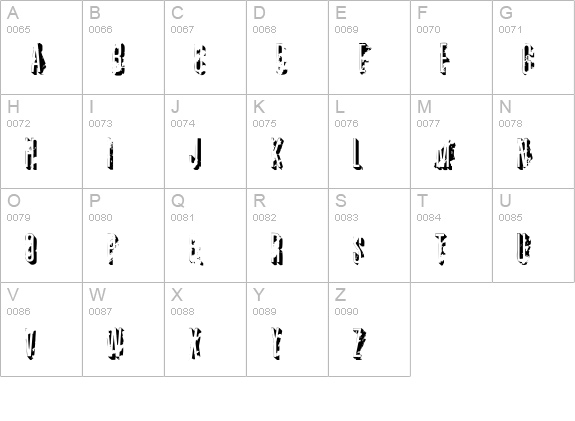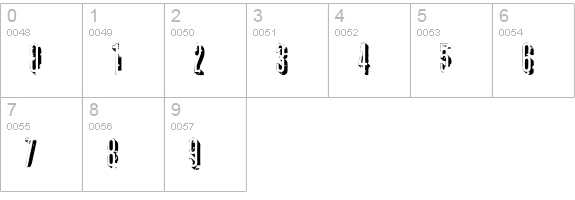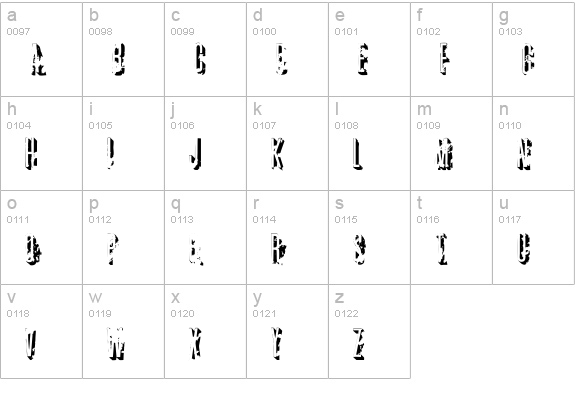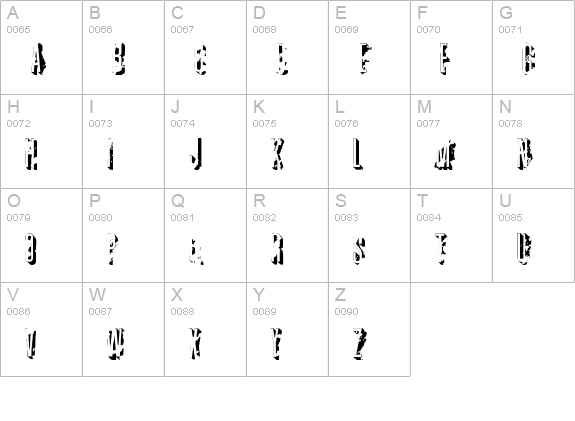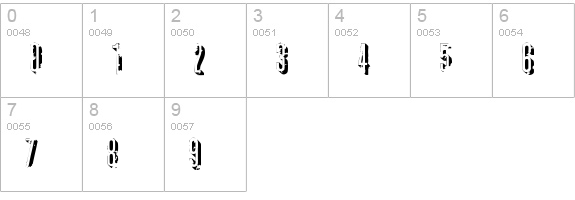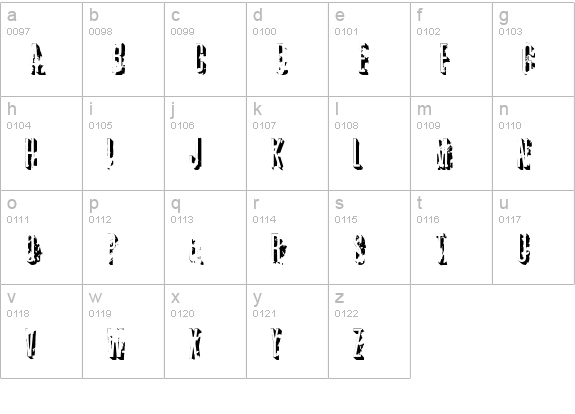
AZ crushed Font Details
The AZ Crushed font is a unique and eye-catching typeface that combines elements of modern design with a distressed, crushed texture. This font exudes a sense of edginess and creativity, making it perfect for projects that require a bold and impactful look. Its sharp edges and uneven lines give it a raw and rugged appearance, adding a touch of urban flair to any design. Best of all, the AZ Crushed font is available for free download at FontsMarket.com, making it easily accessible to designers and creatives looking to add a touch of character to their projects without breaking the bank. Whether you're working on a poster, logo, website, or any other design project, the AZ Crushed font is sure to make a statement and leave a lasting impression. Download it today and let your creativity shine with this striking and versatile font.